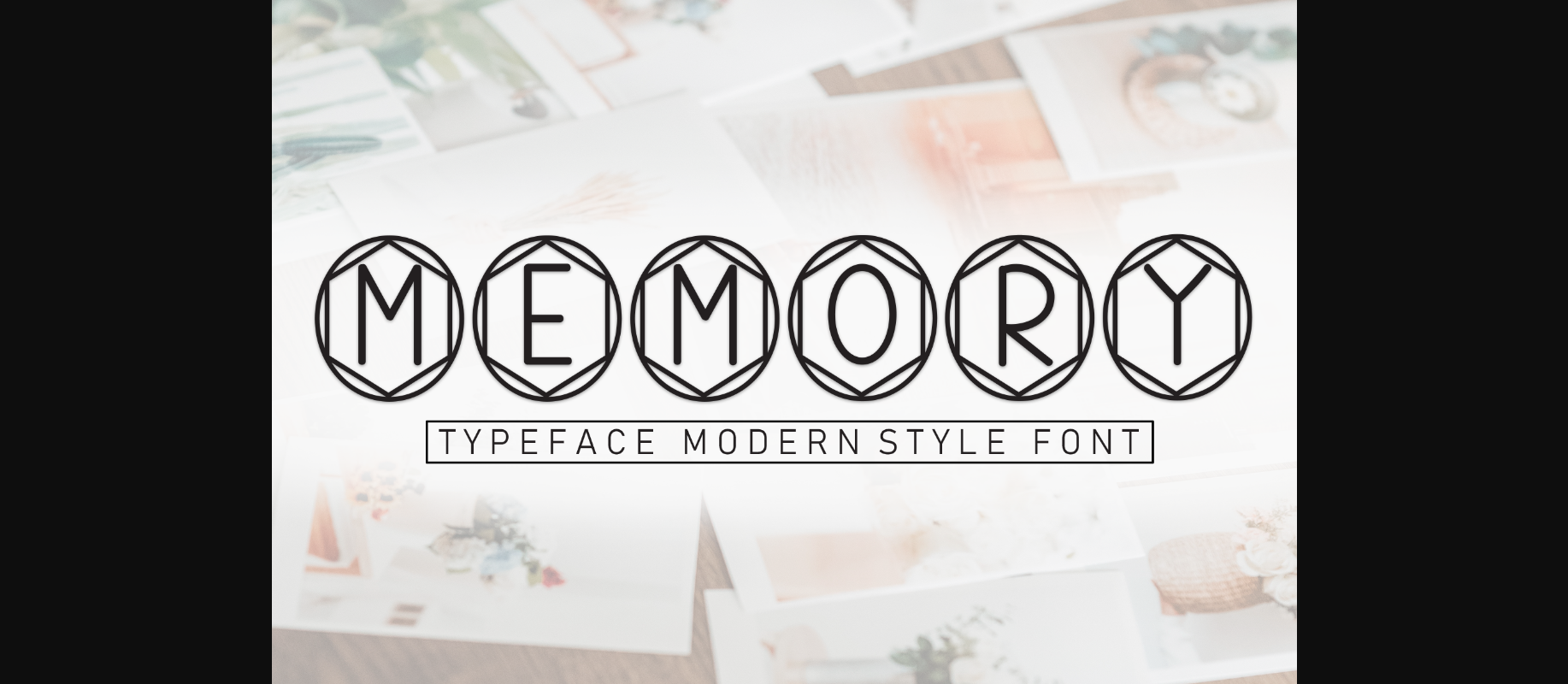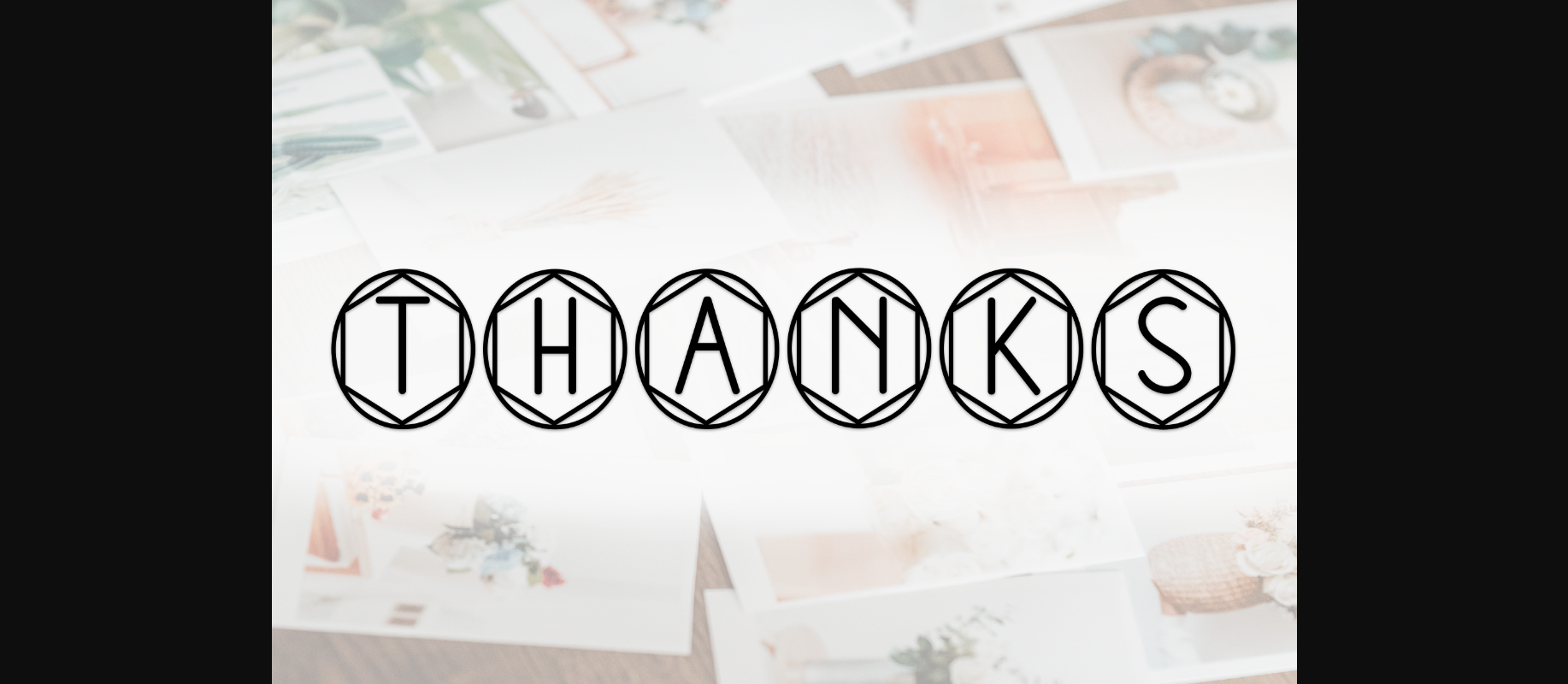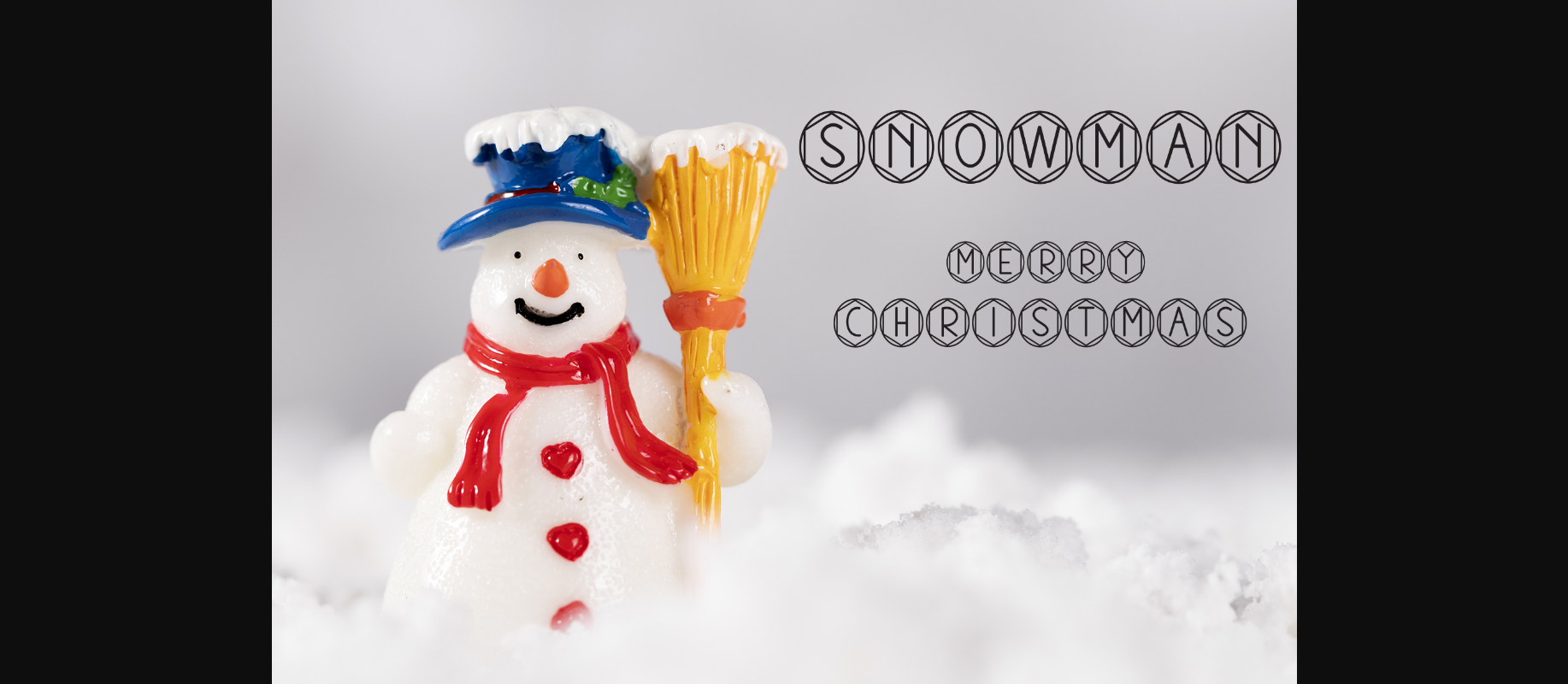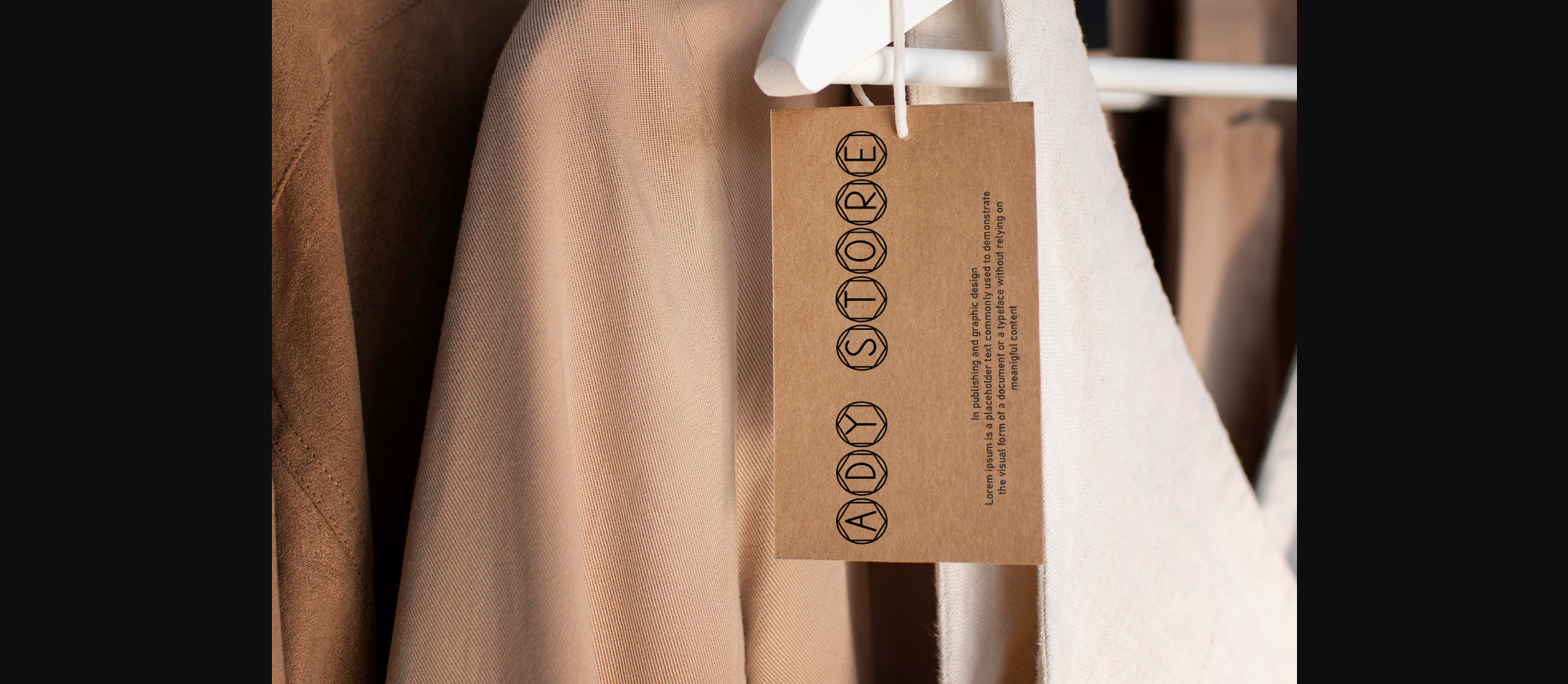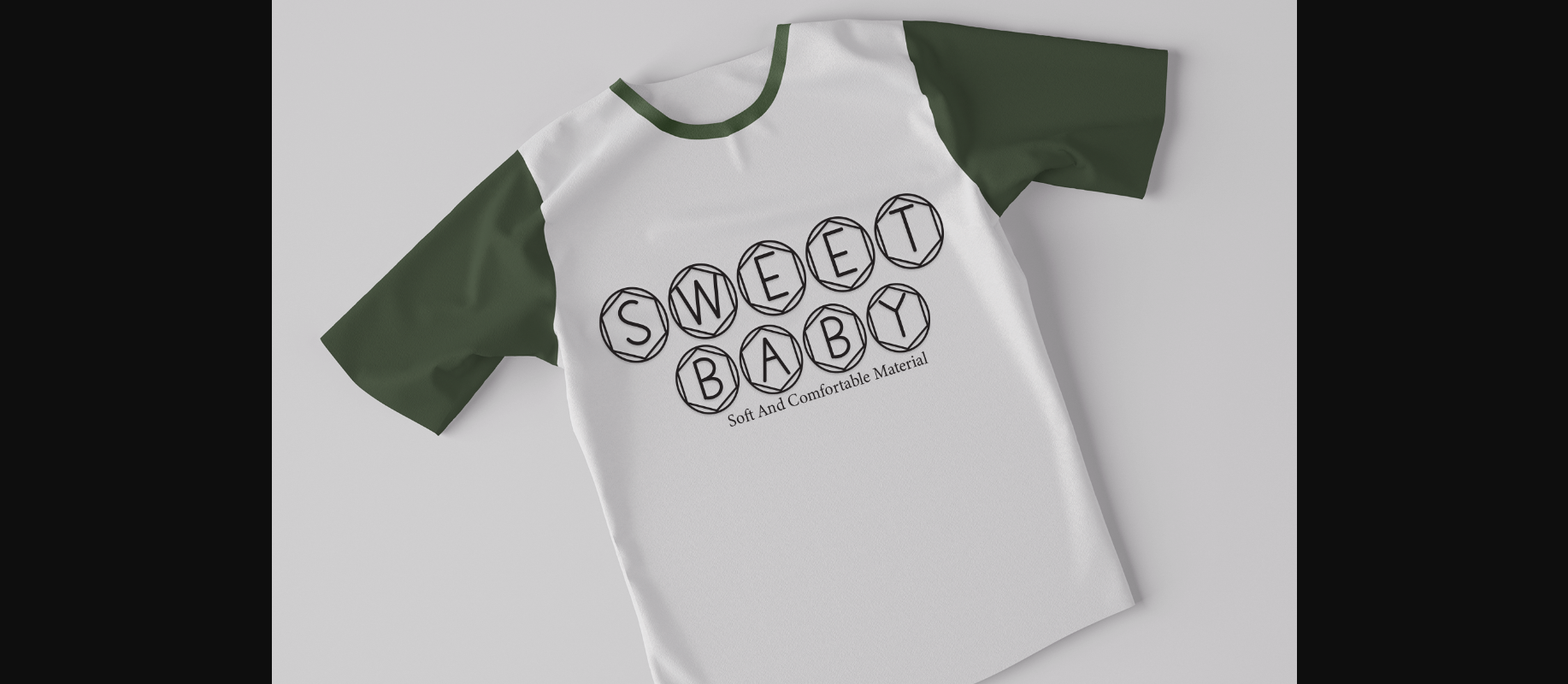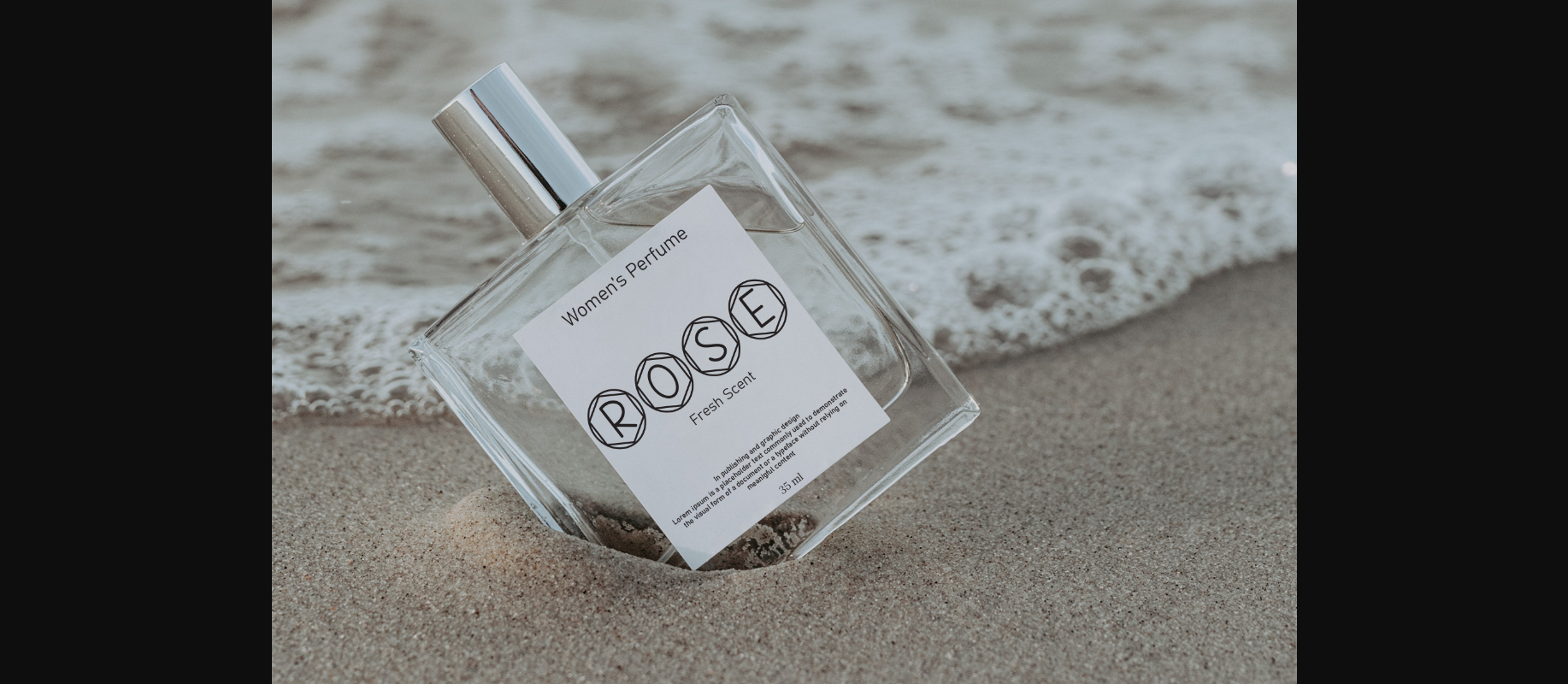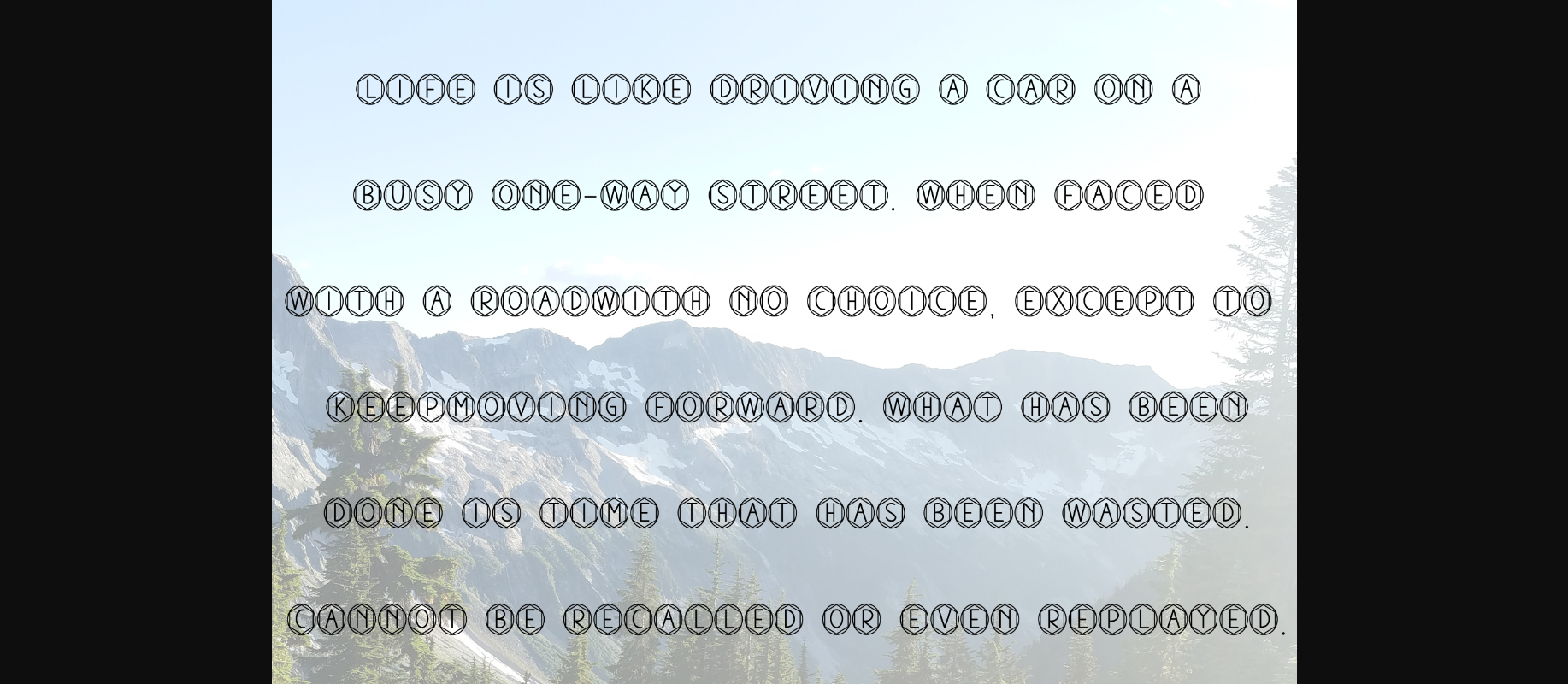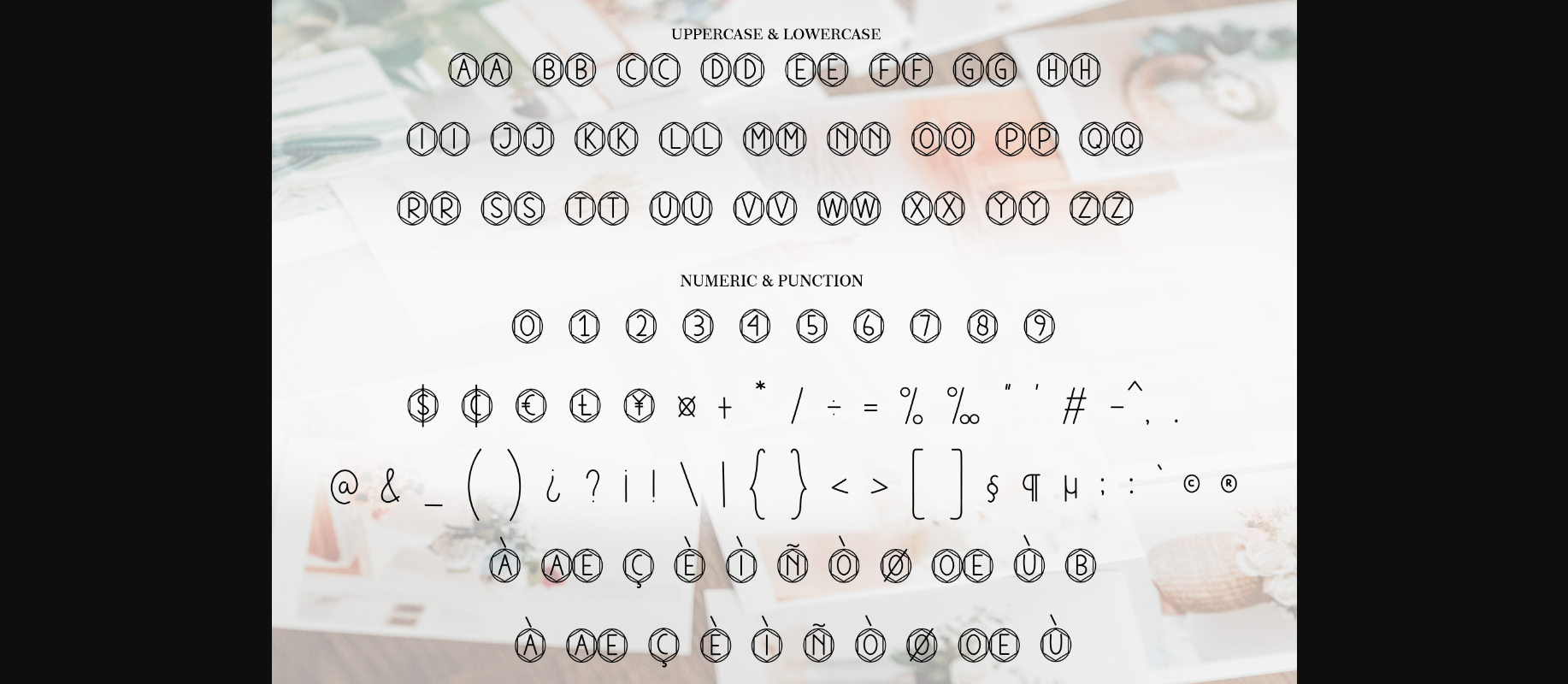
HomeDecorative FontsMemory Font Decorative Fonts Memory Font FacebookXPinterestWhatsApp 1 of 10 ... Memory Font Poster 2... Memory Font Poster 3... Memory Font Poster 4... Memory Font Poster 5... Memory Font Poster 6... Memory Font Poster 7... Memory Font Poster 8... Memory Font Poster 9... Memory Font Poster 10... About Memory Font This is a sweet and friendly handwritten display font. Cute and fun, this font is ideal for writing wedding invitations, cards, or any other design that might need a fun touch! DOWNLOAD NOW People also explored Gustavo Eastwood Font Rockers Font Harleigh Yamileth Font Cavalry Font Calico Cat Lalica Font Simon Drake Font Tiberias Font BisQuid Font 335 0 TagsMemoryMemory Font Previous articleBaby Sweet FontNext articleLinedoor Font LEAVE A REPLY Cancel reply Comment: Please enter your comment! Name:* Please enter your name here Email:* You have entered an incorrect email address! Please enter your email address here Website: Save my name, email, and website in this browser for the next time I comment. Personal Use Free Adrenaline Personal Use Free Read more about this font Mini Story Personal Use Free Read more about this font Open Store Personal Use Free Read more about this font Bintang Noela Personal Use Free Read more about this font BLOG Using Fonts in Digital Marketing: Tips to Strengthen Your Brand Identity In the realm of digital marketing, every visual element plays a crucial role in shaping a brand's identity, and fonts are no exception. The... 5 Fonts That Will Dominate Design Trends in 2026 Modern Sans-Serif Fonts That Brands Love in 2025 Transform Your Website: Elevate Your Typography with 7 Best Web Font Generators